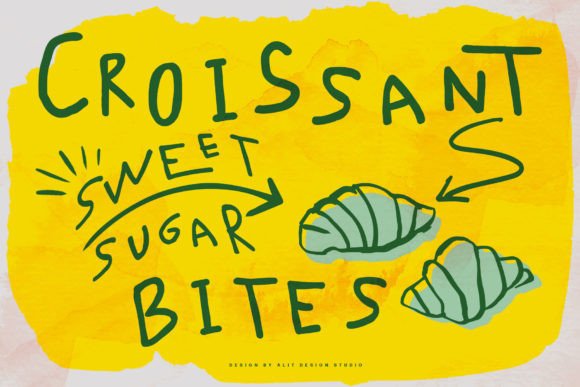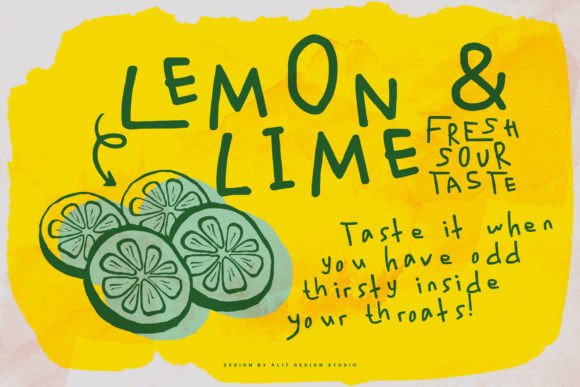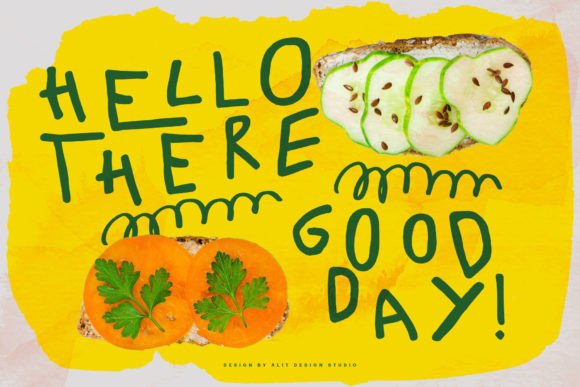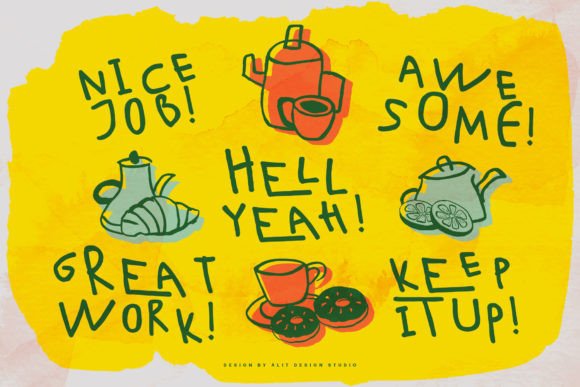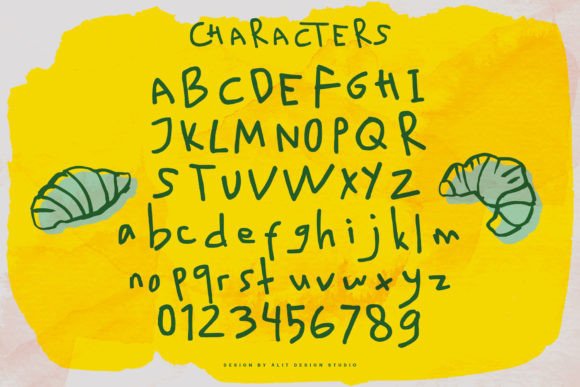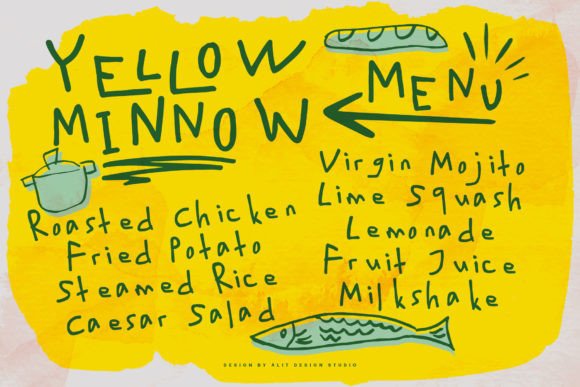
Introducing Apple New Island: The Charming Handwritten Sans Serif Font
Have you ever been in the middle of a design project, and suddenly, you’re stuck on finding the perfect font? I recall a recent experience where a client asked for a logo that was both whimsical and elegant. After hours of searching, I stumbled upon Apple New Island, a beautiful handwritten sans serif font that instantly captured the essence of what I was looking for. In this article, we’ll dive into the world of Apple New Island, exploring its unique features, uses, and how to make the most of this stunning font.
A Personal Touch: The Handwritten Charm of Apple New Island
Apple New Island exudes the authenticity of hand-crafted letters, offering a personal touch that is both engaging and inviting. This font combines the ease of sans serif readability with the playful nature of handwritten text, making it perfect for a wide range of applications, from personal projects to professional branding.
What Makes Apple New Island Special?
Here are some key features that make Apple New Island stand out:
• ✨ Handwritten Charm: Apple New Island exudes the authenticity of hand-crafted letters, offering a personal touch that is both engaging and inviting.
• ✅ Sans Serif Simplicity: Combining the ease of sans serif readability with the playful nature of handwritten text, this font strikes the perfect balance for any design.
• 💫 Aesthetic Appeal: Despite its naïve roots, Apple New Island maintains a stylish and polished look, ensuring your text stands out with a unique flair.
• 🎨 Versatile Use: Perfect for logos, social media graphics, invitations, stationery, and more, Apple New Island is a versatile font that can elevate any design.
• ✨ The unique blend of handwritten charm and sans serif simplicity.
• ✅ The font’s versatility, making it suitable for various design applications.
• 💫 The aesthetic appeal of Apple New Island, which adds a touch of elegance to any design.
• ⚠️ Some users might find the font a bit too casual for formal projects.
• 🤔 The font’s naïve roots might not appeal to those looking for a more traditional or serif font.
The Story Behind Apple New Island: Designer Inspiration
Apple New Island was designed with the intention of capturing the essence of spontaneity and creativity. The font’s creator aimed to create a typeface that would bring a touch of whimsical elegance to designs, while maintaining a level of sophistication and polish. Inspired by the beauty of handwritten lettering, Apple New Island is a unique blend of casual and elegant, making it perfect for a wide range of design applications.
Q: What makes Apple New Island unique?
A: Apple New Island’s unique blend of handwritten charm and sans serif simplicity makes it stand out from other fonts.
Q: Is Apple New Island suitable for formal projects?
A: While Apple New Island has a more casual feel, it can still be used for formal projects, depending on the context and design.